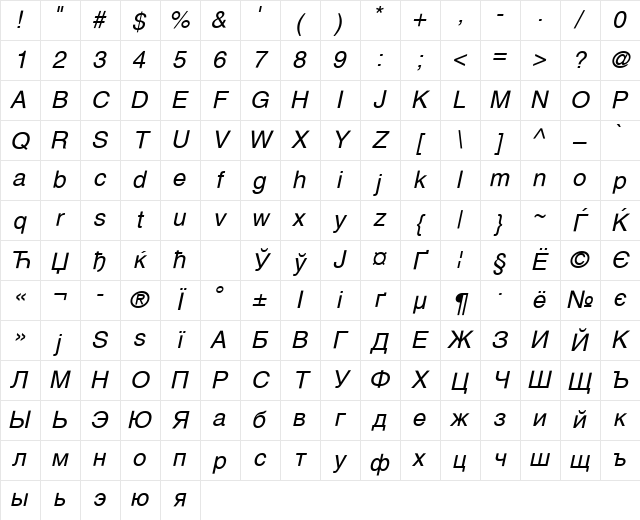
Helios Regular
Helios Family
Design Context for Helios
Helios is a composed and adaptable typeface that performs quietly and consistently across a wide range of design contexts.